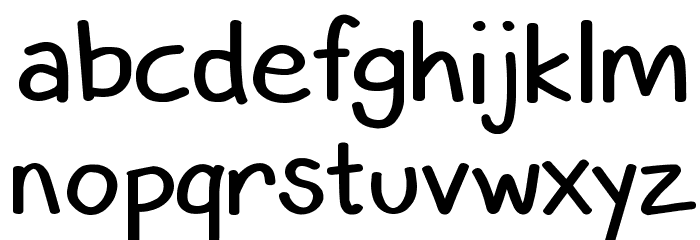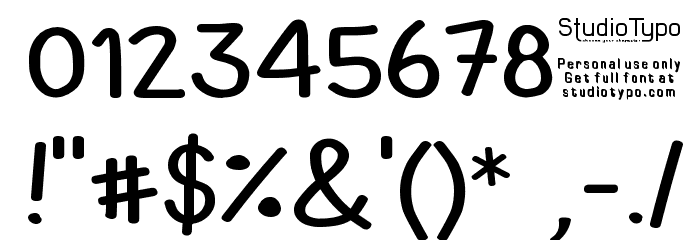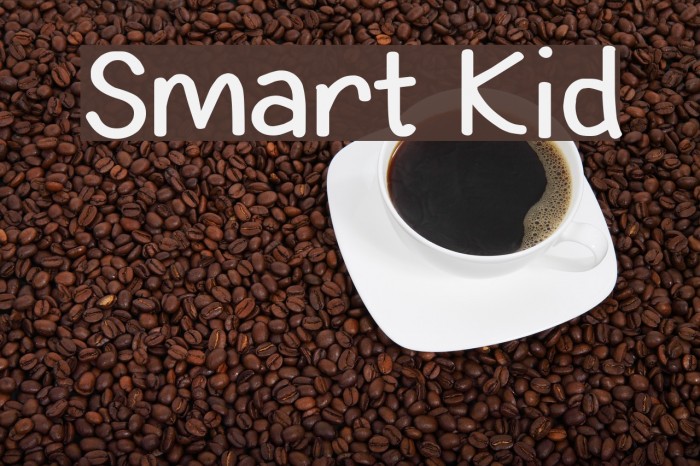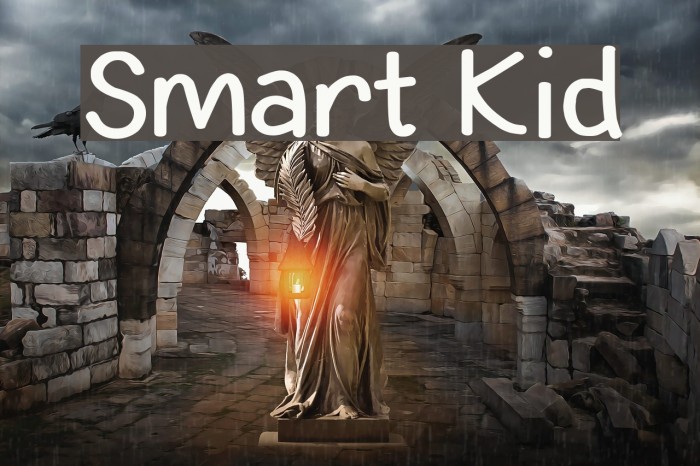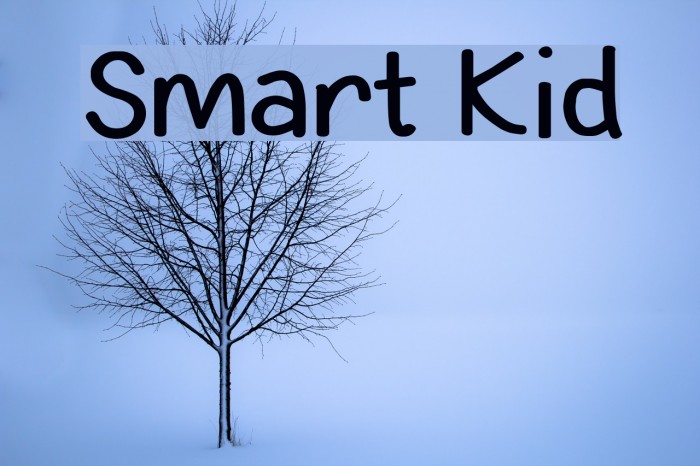
Smart Kid Font
This playful and informal font features rounded, slightly irregular characters that convey a sense of whimsy and friendliness. The letters are bold and have a hand-drawn quality, making them ideal for projects that require a casual and approachable aesthetic. The uppercase and lowercase letters maintain a consistent style, with a slight tilt and varying stroke thickness that adds to the font's charm. Numbers and special characters are equally well-crafted, ensuring versatility across different uses. The overall appearance is reminiscent of handwriting, making it suitable for creative and fun designs.
A playful, hand-drawn font with rounded, irregular characters.
- Proposed Projects: Ideal for children's books, educational materials, playful branding, and casual invitations.
- Overall Style: Playful
- Use Case: Headlines, Logos, Informal Text